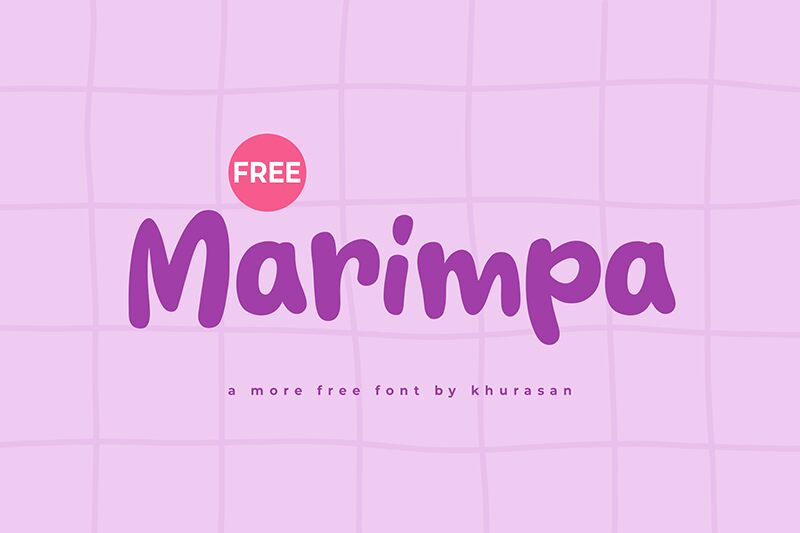
Marimpa
Marimpa font by Khurasan is a playful cartoon display design that edges towards the more whimsical side of typography. The friendly and approachable typeface features thick bold letters with slight irregularities, giving it a modern laid-back look. This casual free font will add lightness and warmth to your fun artworks as it radiates joy and a youthful vibe.
Use Marimpa in colorful book covers, magazine covers, remarkable branding designs, product packaging, labels, kid website designs as well as online platforms. Practice using the letters for posters and flyers designed with children audiences in mind. Another area you can incorporate the font into is your gaming projects – video or otherwise!